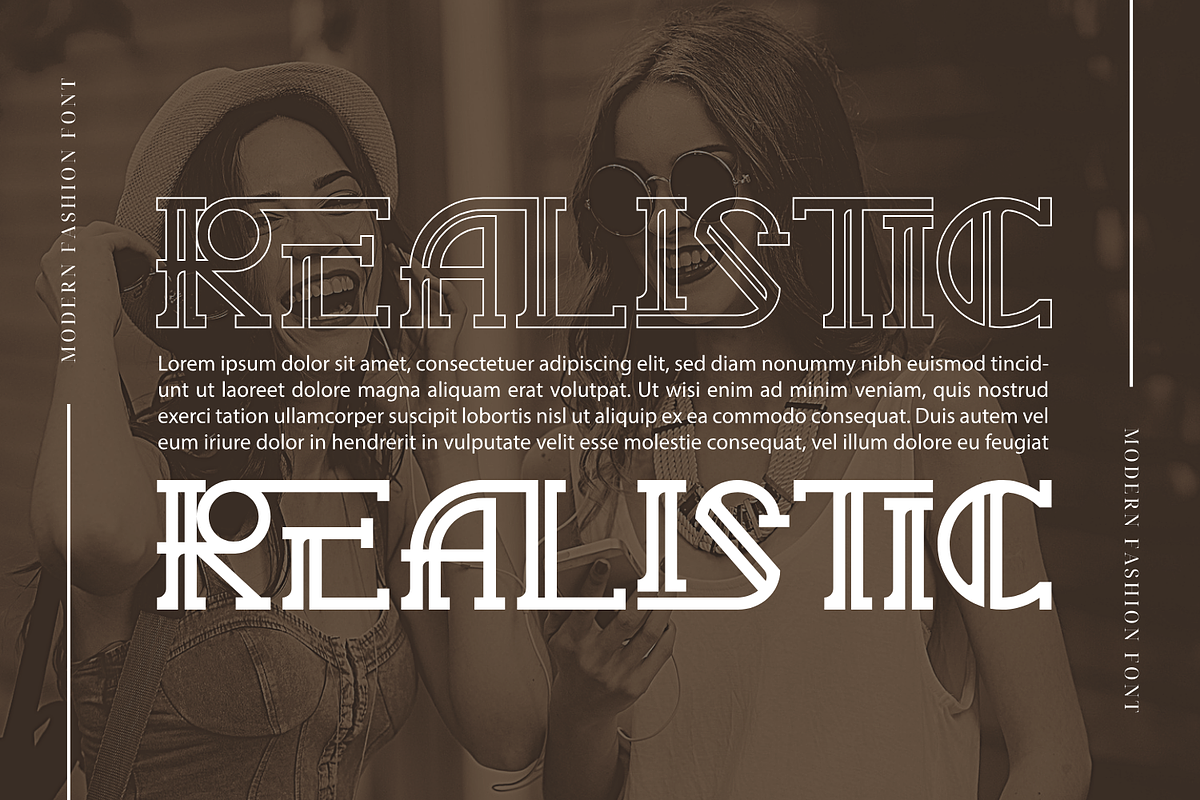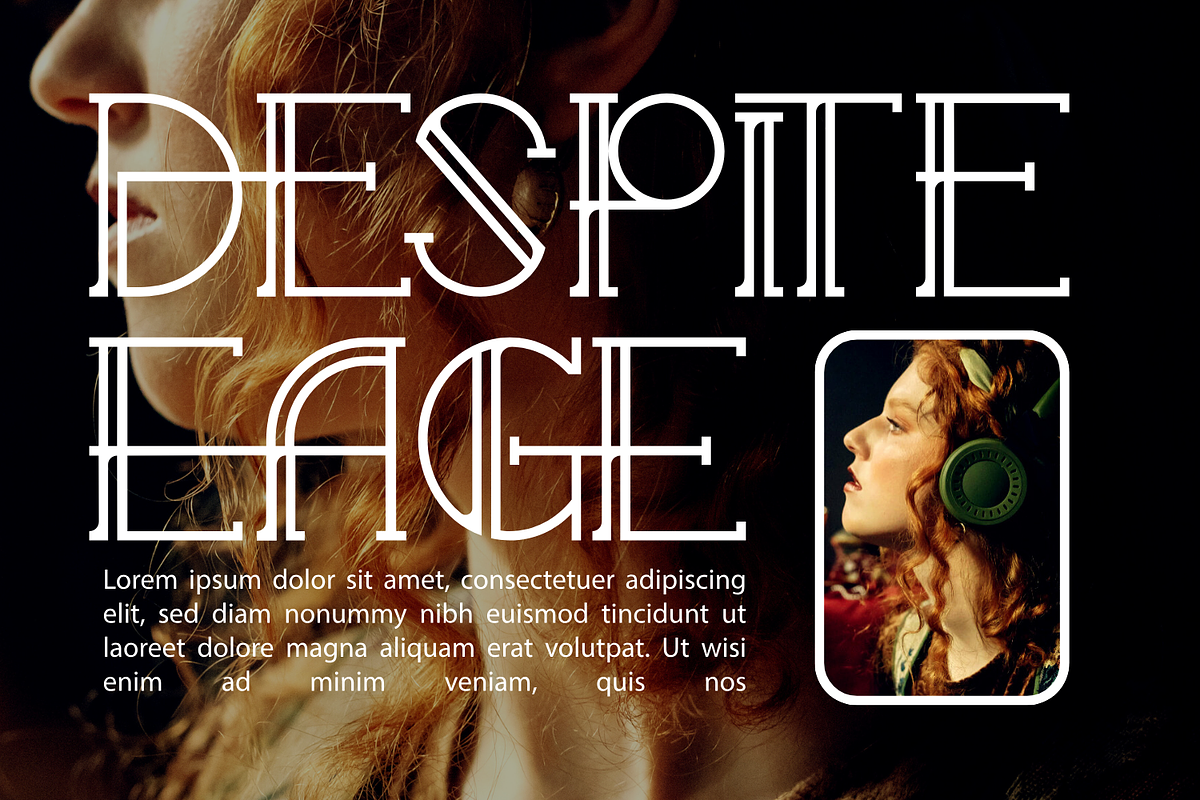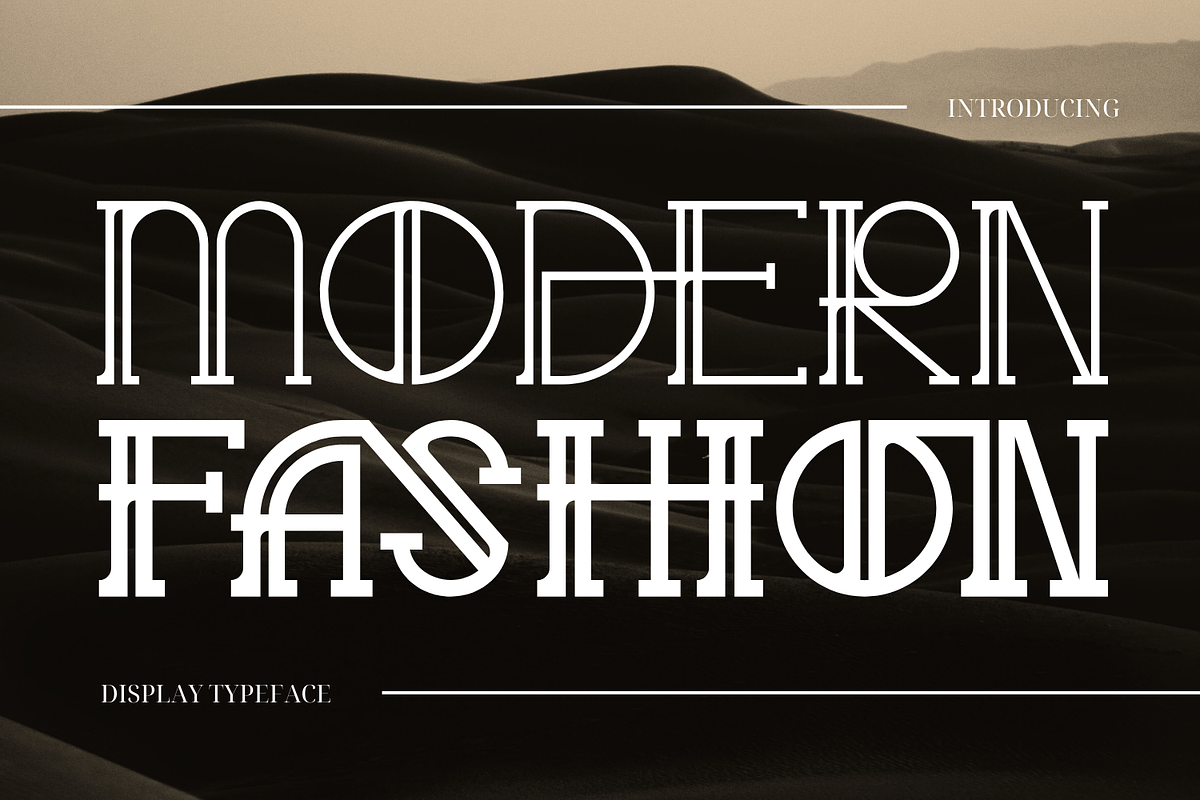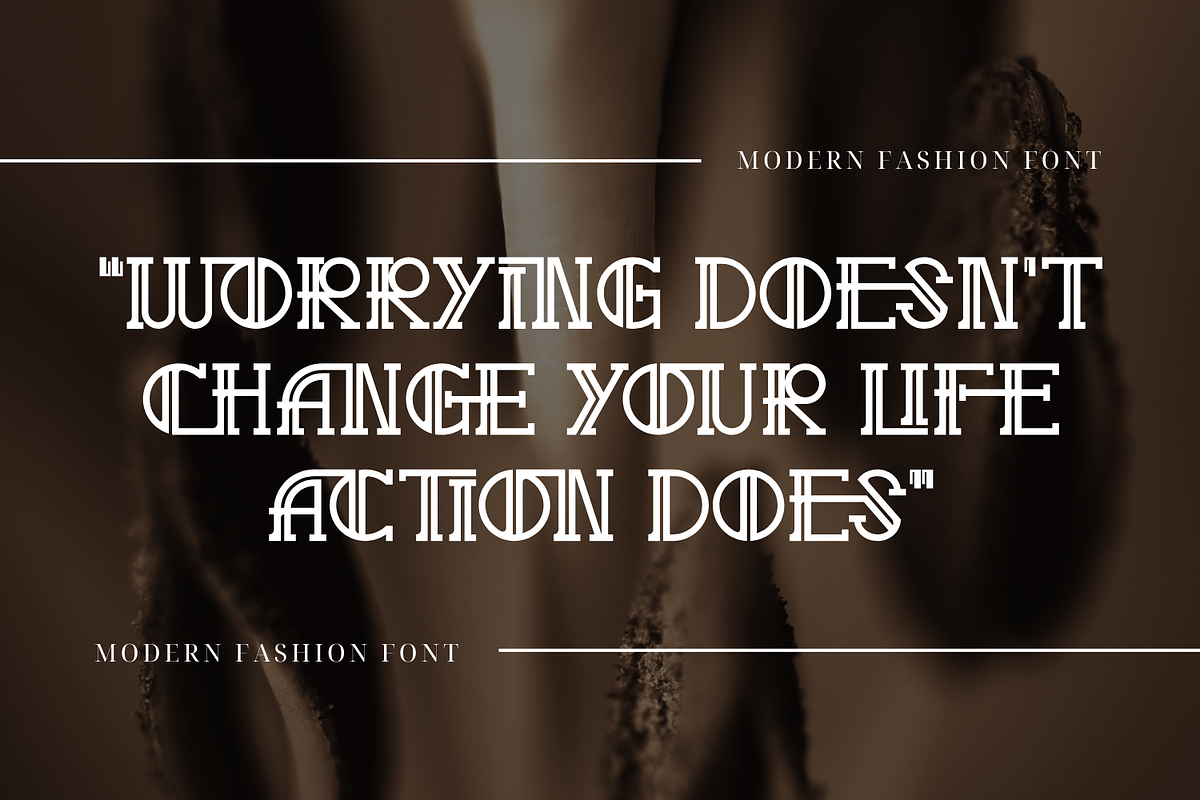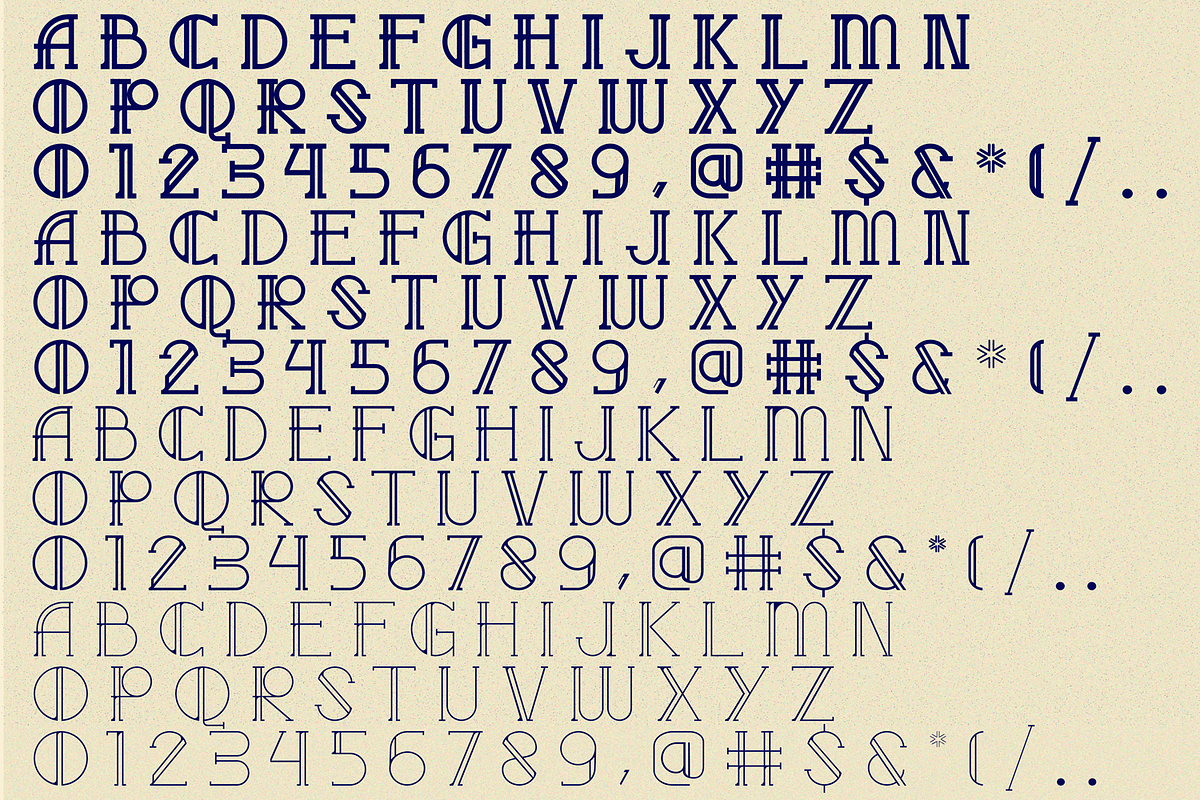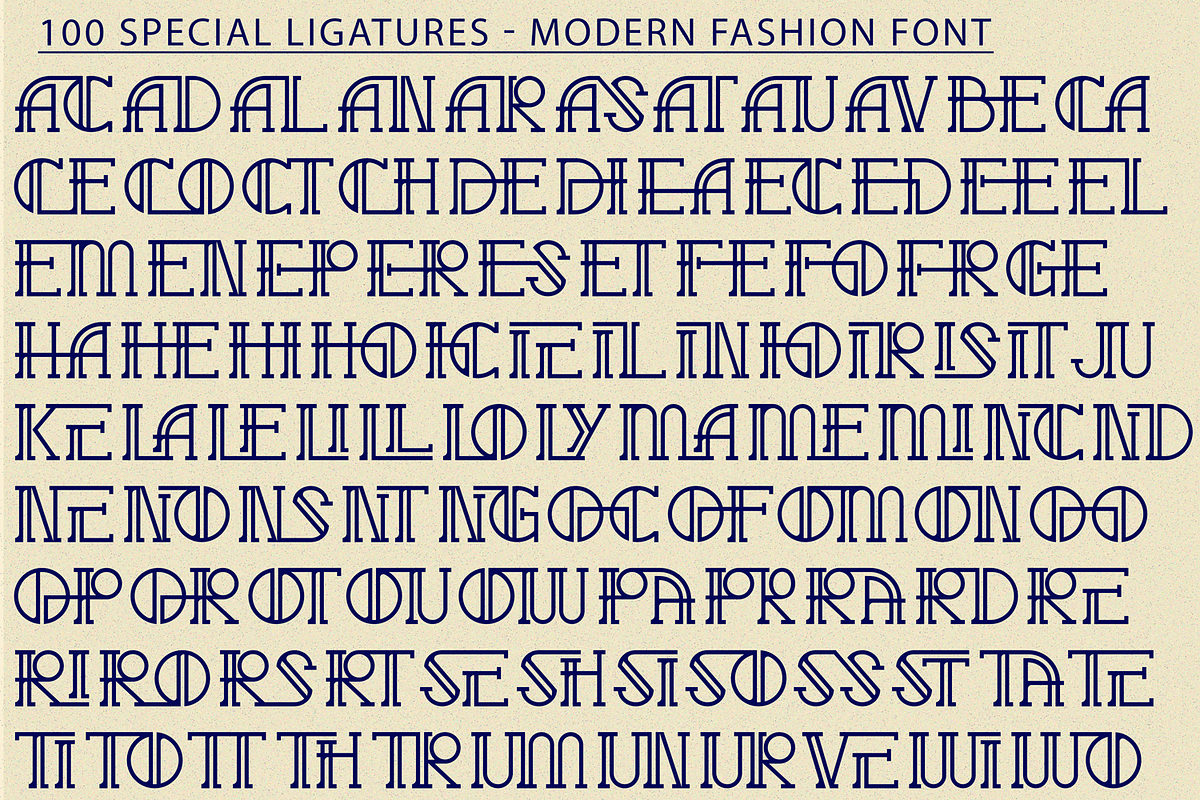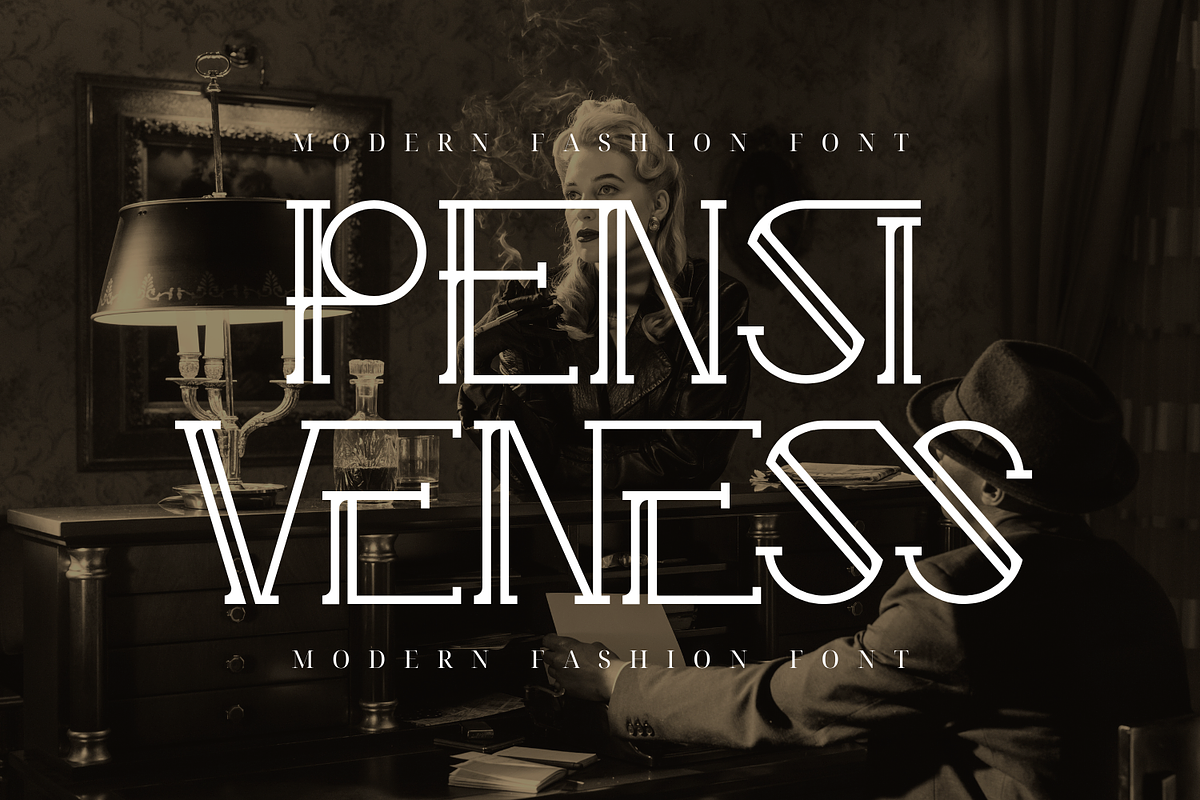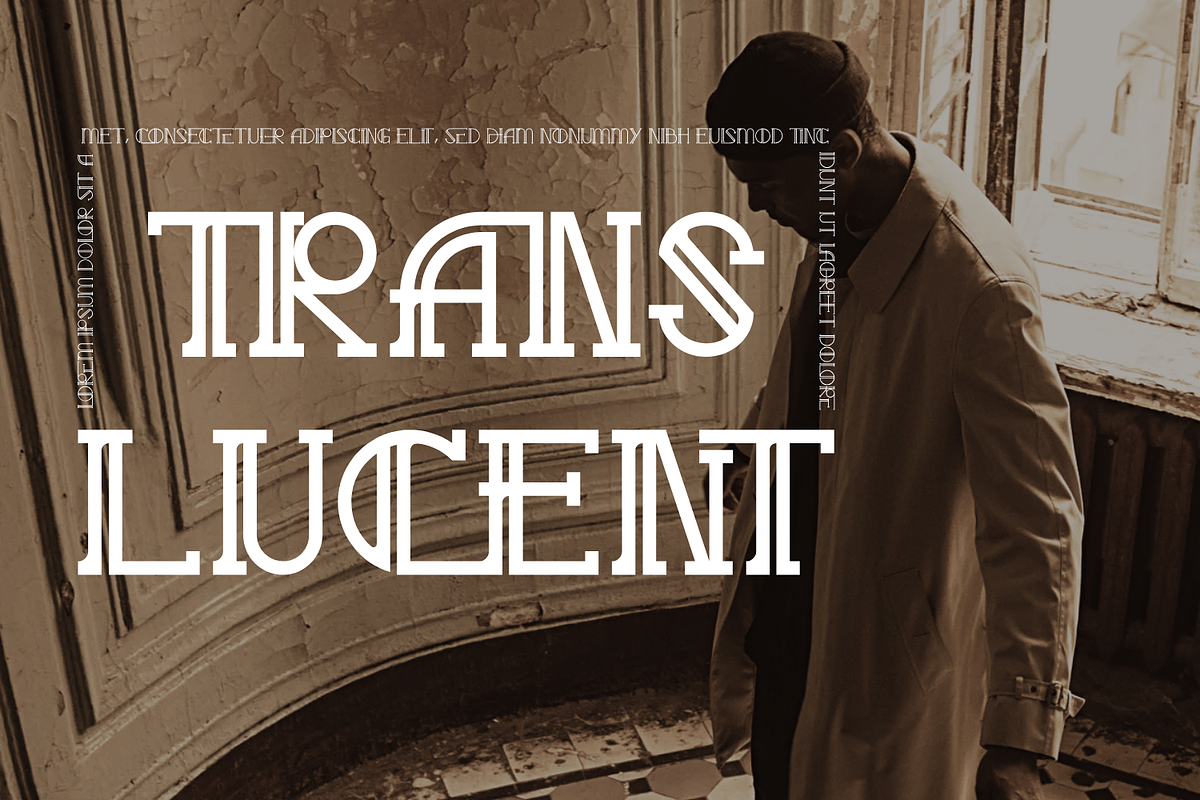
Modern Fashion Font
Modern Fashion Font, a one-of-a-kind Art Deco typeface that exudes elegance and modern sophistication. Perfectly balancing dynamic thick and thin strokes, it’s charm lies in its striking two-line body, making it an extraordinary choice for vintage-inspired yet contemporary projects. This unique typeface is defined by its dynamic 2-line body, which creates a sense of sophistication and movement, making it ideal for modern designs that aim to evoke timeless luxury.
Modern Fashion was built with OpenType features and includes 100 ligatures, alternate, numbers, punctuation, and it also supports other languages.
AC AD AL AN AR AS AT AU AV BE CA CE CH CO CT DE DI EA EC ED EE EL EM EN EP ER ES ET FE FO FR GE HA HE HI HO IE IC IL IN IO IR IS IT JU KE LA LE LI LL LO LY MA ME MI NC ND NE NG NO NT NS OC OF OM ON OO OP OR OT OU OW PA PR RA RD RE RI RO RS RT SE SH SI SO SS ST TA TE TH TI TO TR TT UM UN UR VE WI WO